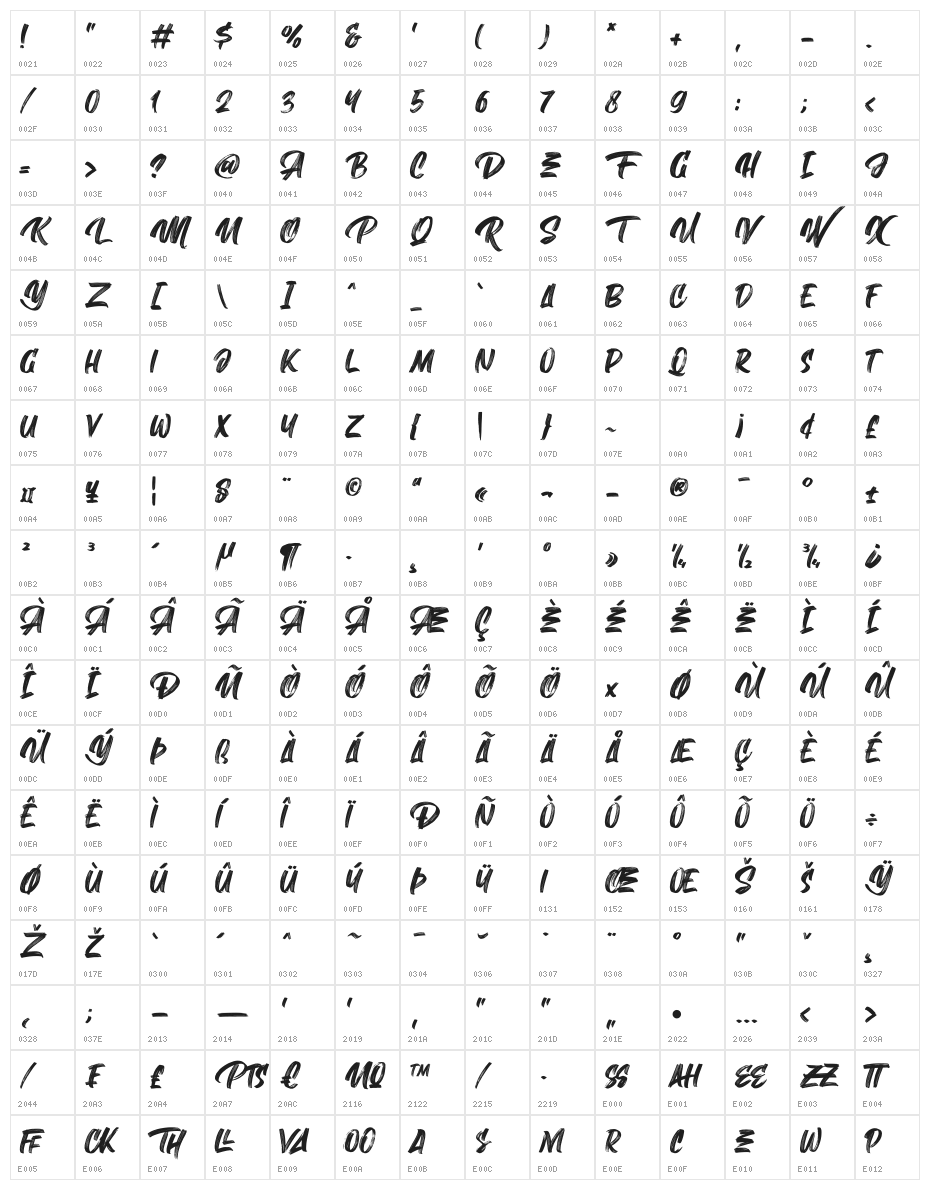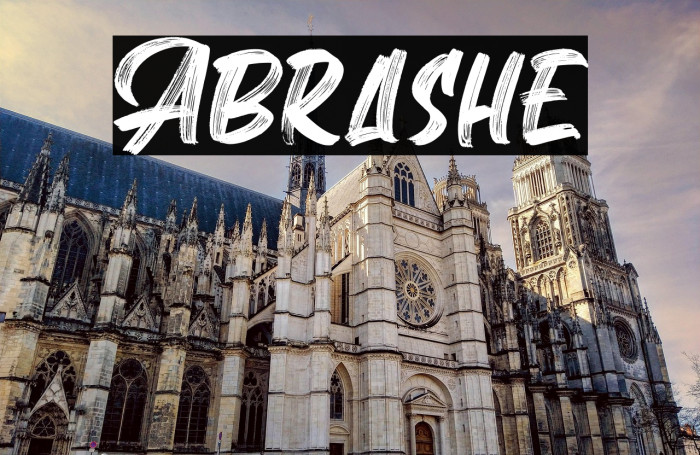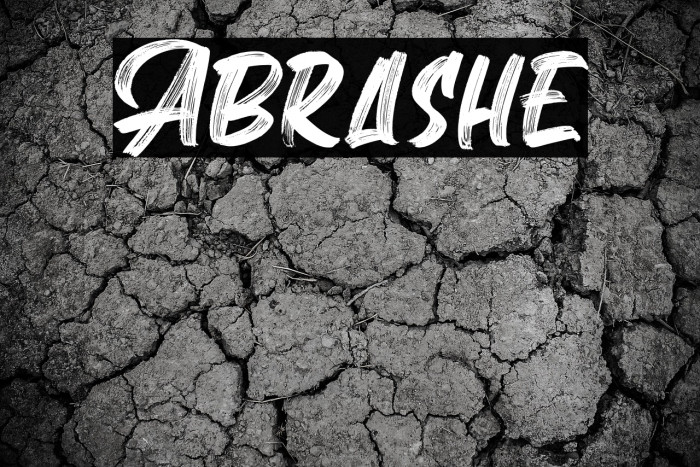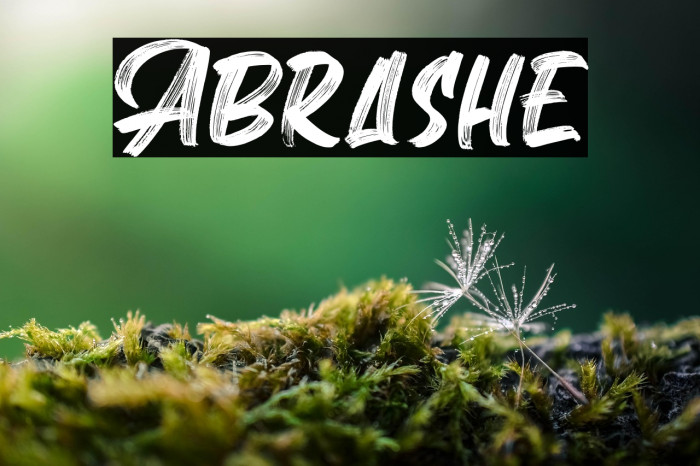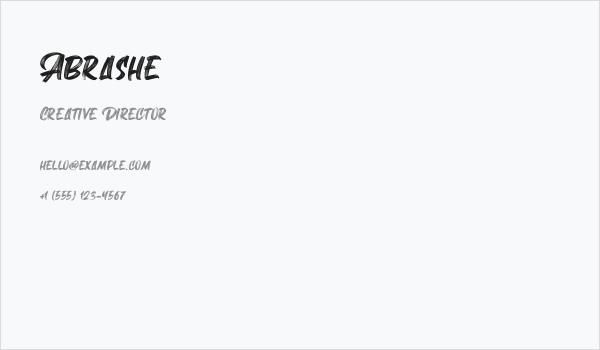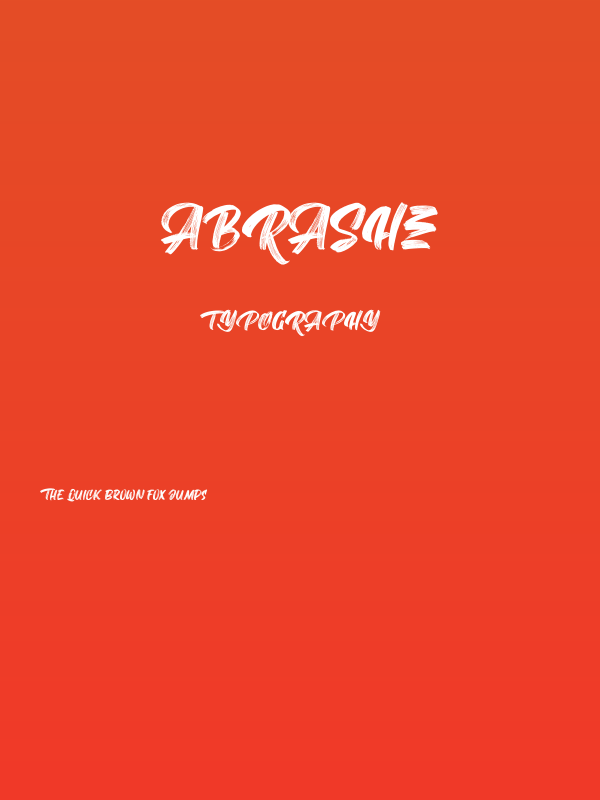
Abrashe Font
Abrashe Description
This font features a bold, expressive brush style that exudes energy and dynamism. The strokes are thick and textured, giving a hand-painted appearance that is both artistic and impactful. Each character is crafted with a sense of movement, making it ideal for designs that require a strong visual presence. The uppercase and lowercase letters maintain a consistent style, while the numbers and special characters are equally bold and expressive. This font is perfect for creative projects that aim to capture attention and convey a sense of boldness and creativity.